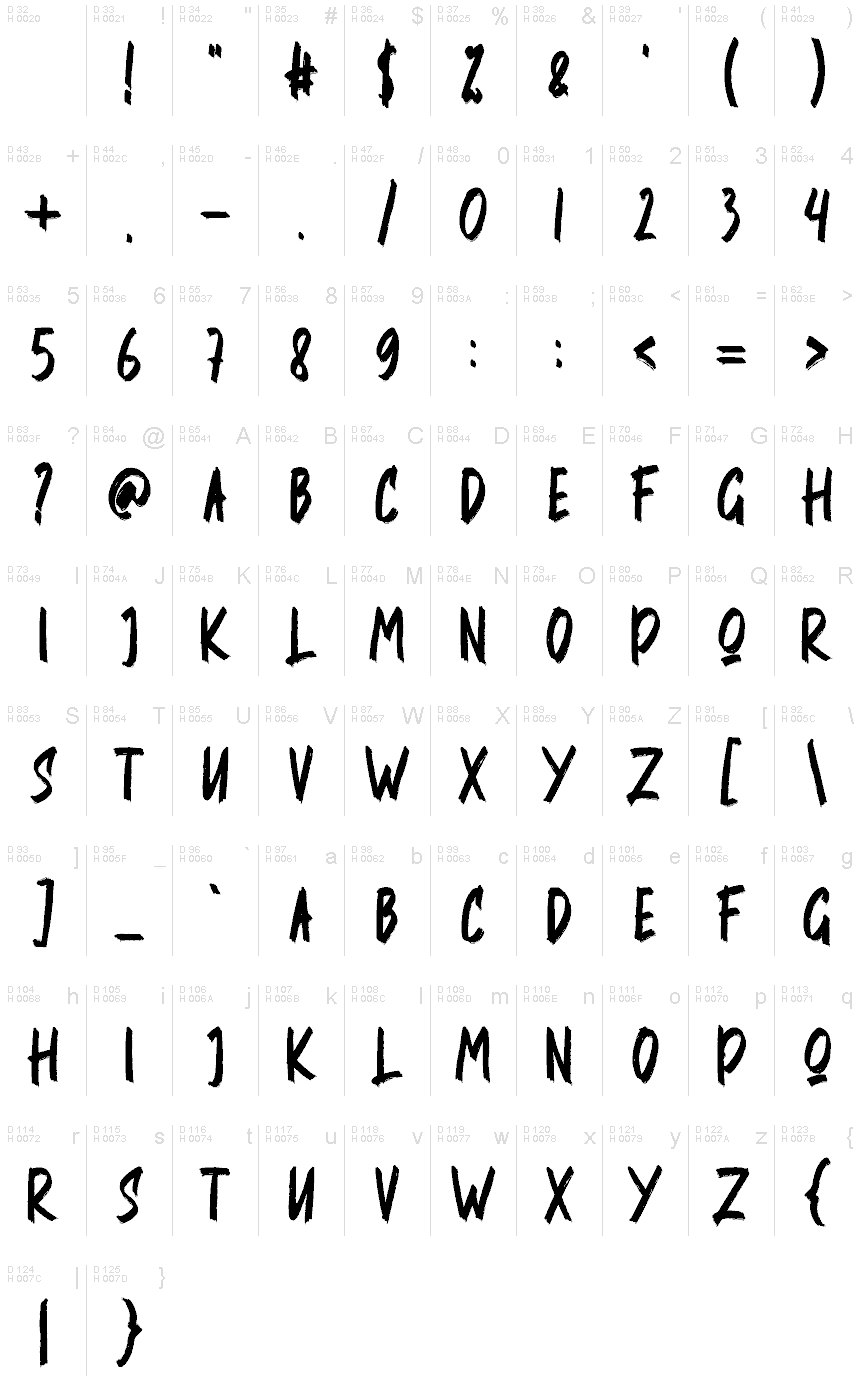
SCARY NIGHT
Scary night font is a condensed brush font brought to you by Skiiller Studio. The edgy and distressed appearance of this writing flows smoothly with its rugged brush style and high contrast. Adding a gritty texture for more intense visual effects, the text appears as if hand-drawn with every letter unique to be styled both in small and large sizes.
Scary night has many potential use cases even though it stands as a free display font. Typography design posters, movie titles, logos, book covers, band album art, branding concepts, signages, packaging designs, plant labels, tattoo ideas are where this exceptional resource will look its best!